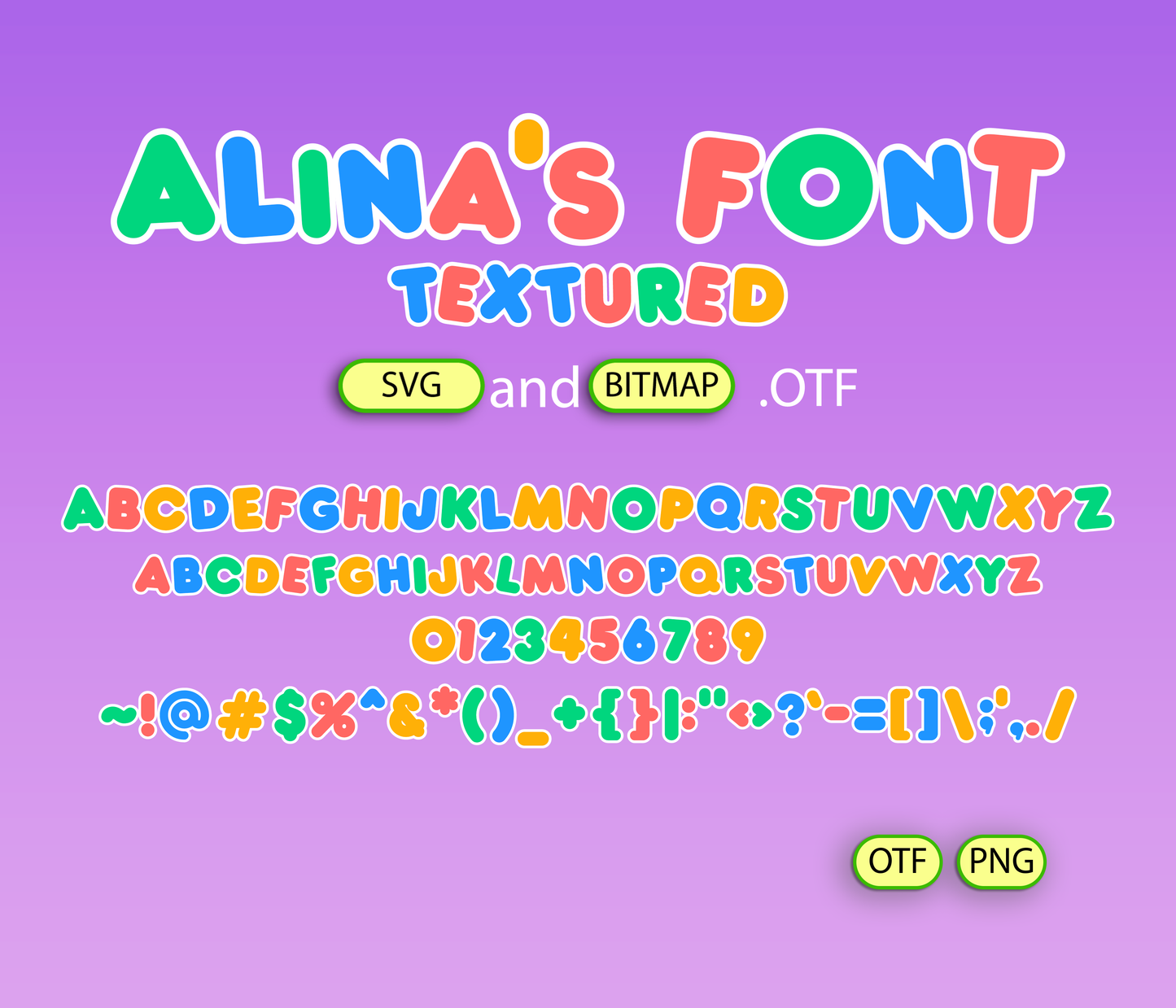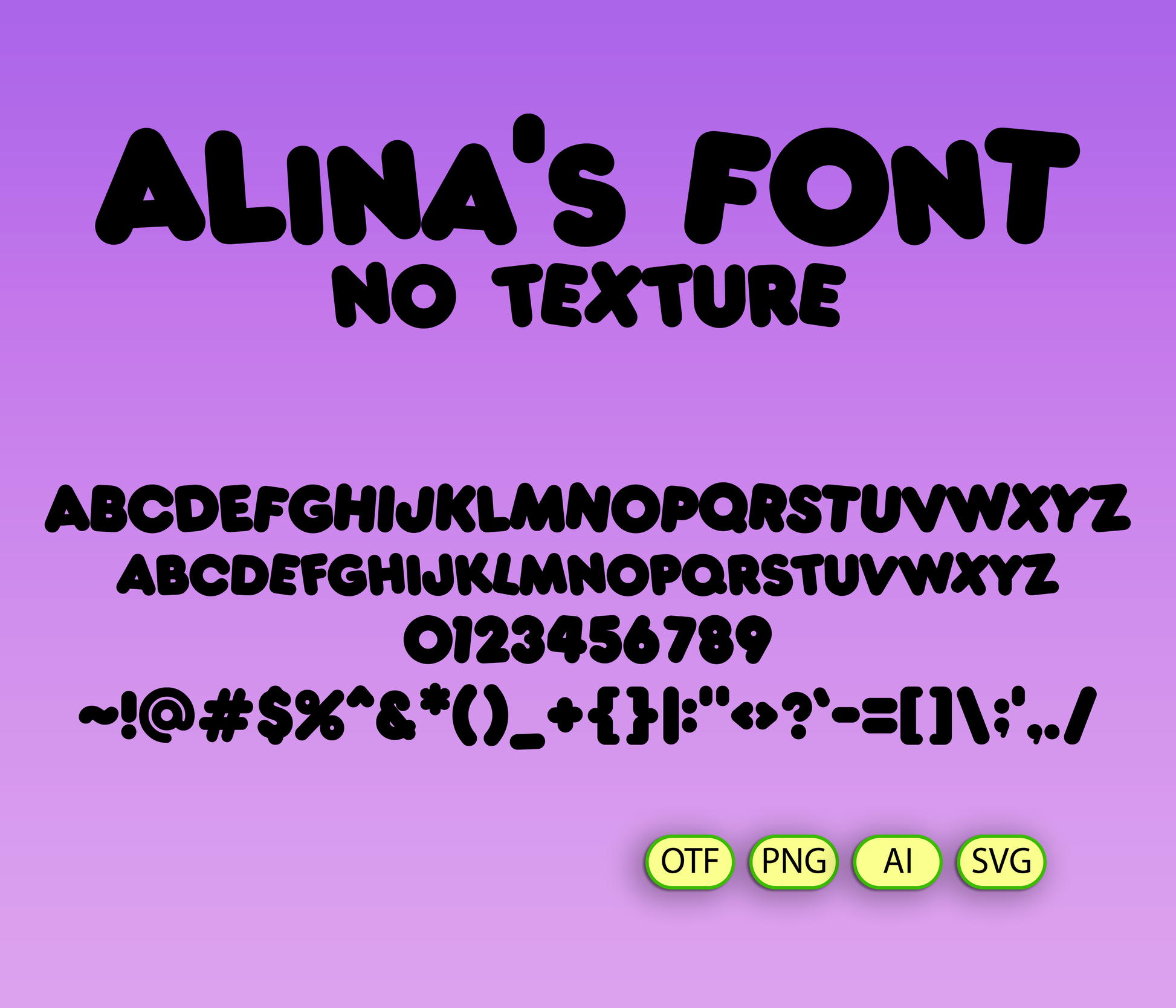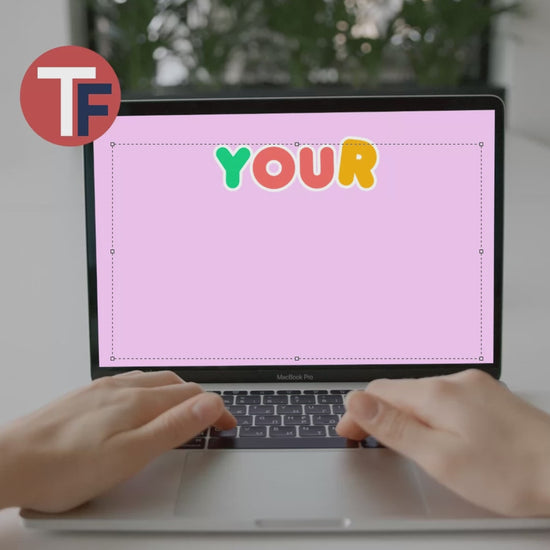
Dive into Fun and Learning with the Playful Pals-Inspired Font
Step into the delightful world of Playful Pals with our specially designed font, capturing the playful and educational essence of beloved children’s series. Perfect for parents, teachers, event planners, and designers, this font brings the cheerful spirit of Playful Pals to your projects. Whether you're creating educational materials, event invitations, themed merchandise, or digital content, our Playful Pals font ensures your projects resonate with the fun and charm that define the show.
Our Playful Pals-inspired font features friendly, rounded lines and cheerful characters that reflect the fun and engaging style of the series. This versatile font is ideal for a variety of applications:
To ensure maximum usability and flexibility, our Playful Pals-inspired font includes both textured and non-textured variants. The non-textured version is particularly beneficial, ensuring compatibility with all types of software, including Canva. This feature allows users of all skill levels to seamlessly incorporate the font into their designs, enhancing accessibility and ease of use across various digital and print platforms.